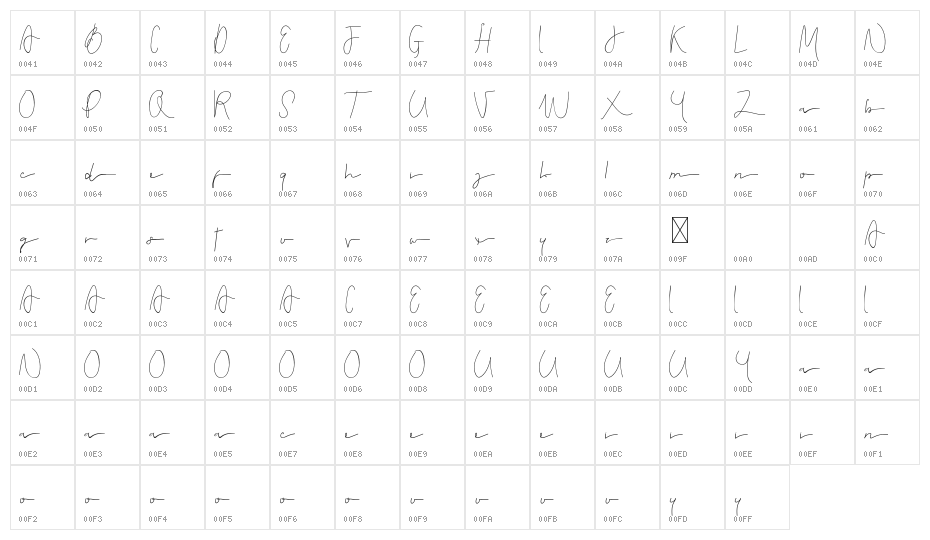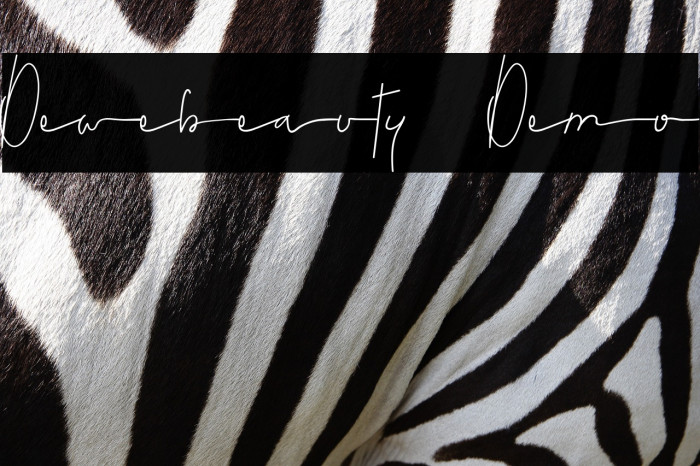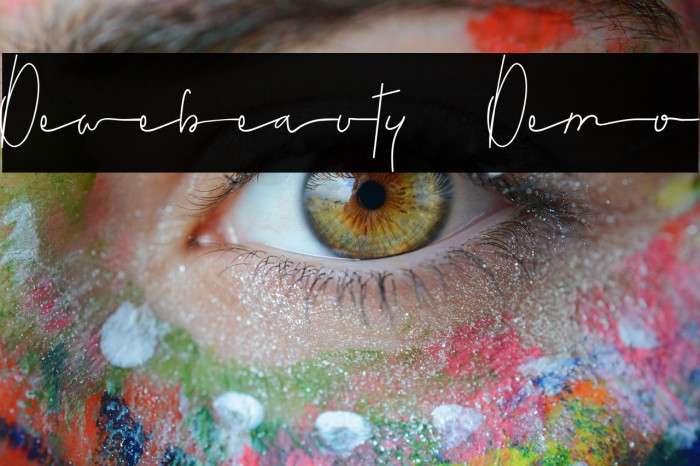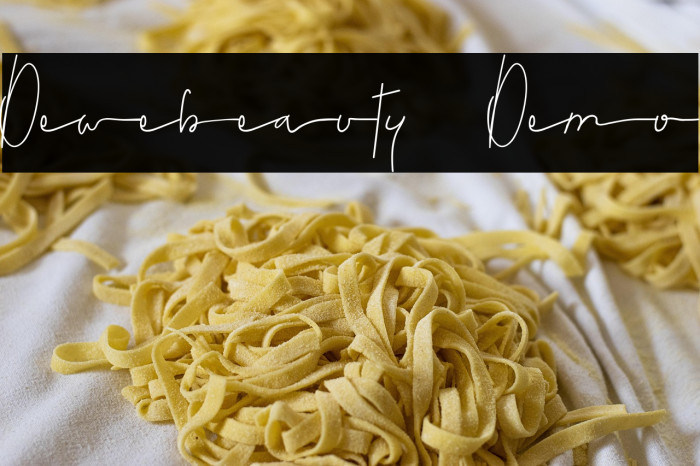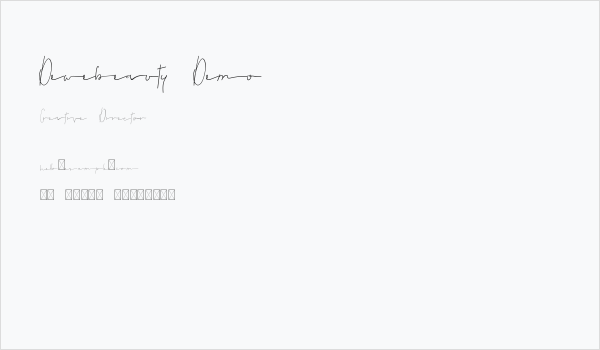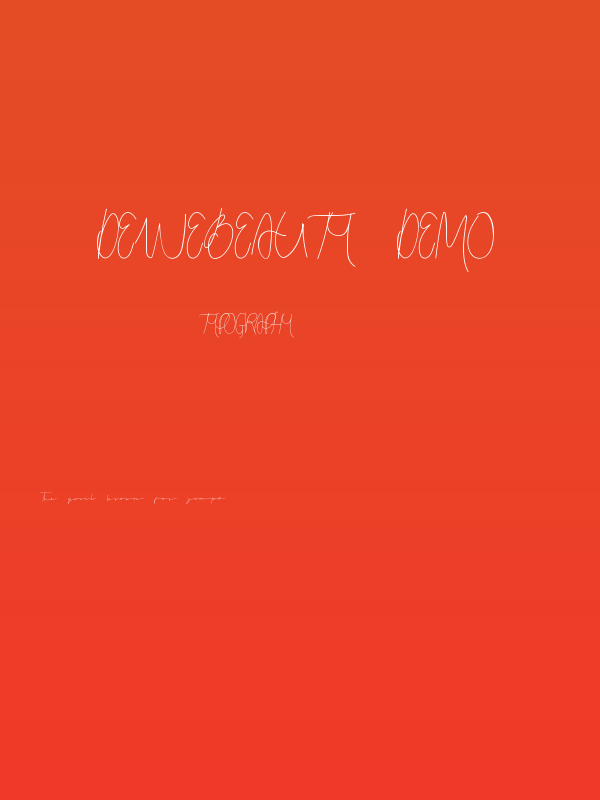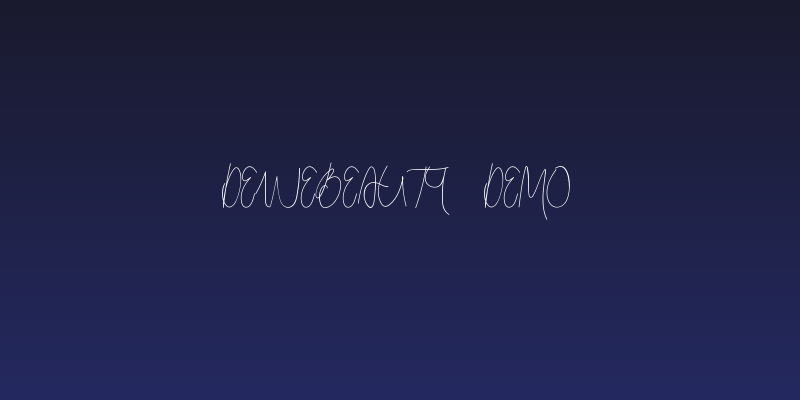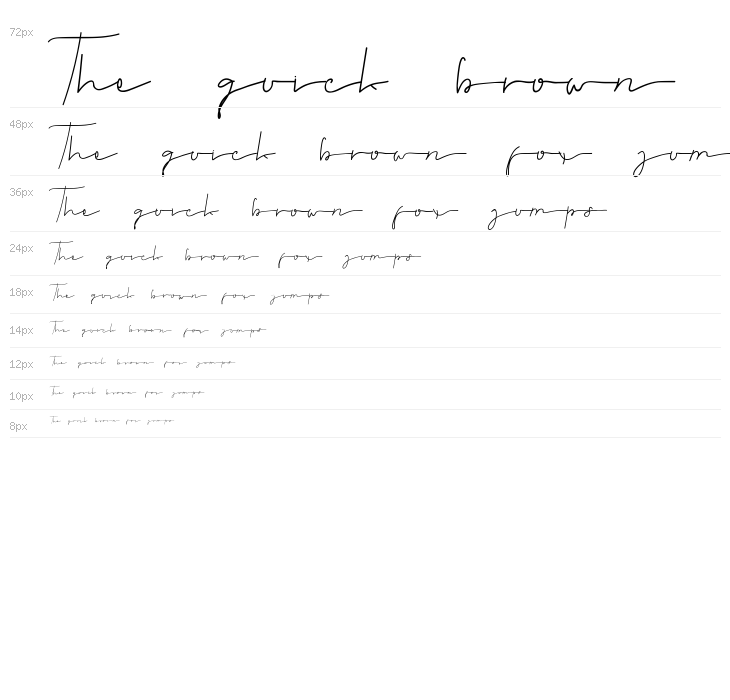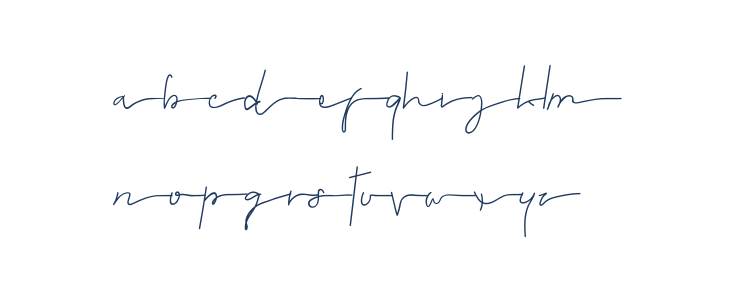
Dewebeauty Demo Font
Dewebeauty Demo Description
This font features a highly decorative and artistic script style, characterized by its flowing, interconnected letters that mimic the fluidity of handwriting. The uppercase and lowercase letters are elegantly crafted with a sense of movement and grace, making it ideal for creative and expressive designs. The strokes are thin and delicate, adding a sense of sophistication and elegance. The font's unique style is perfect for projects that require a personal touch, such as invitations, greeting cards, or branding for luxury products. Its artistic flair and intricate design make it stand out, capturing attention with its distinctive appearance.
| Proposed Projects | Ideal for wedding invitations, greeting cards, luxury branding, and artistic projects. |